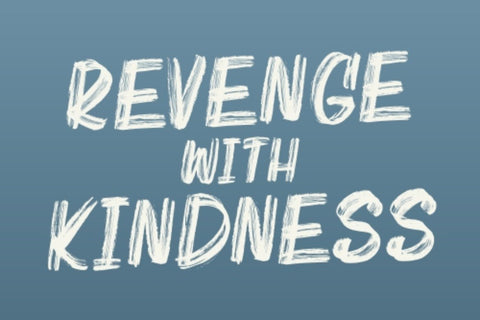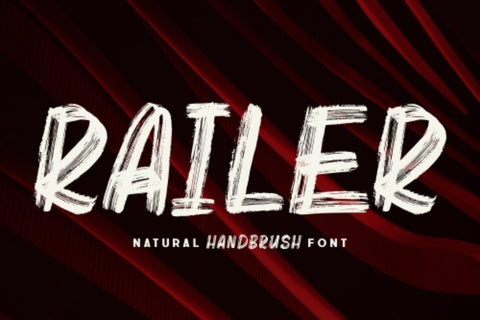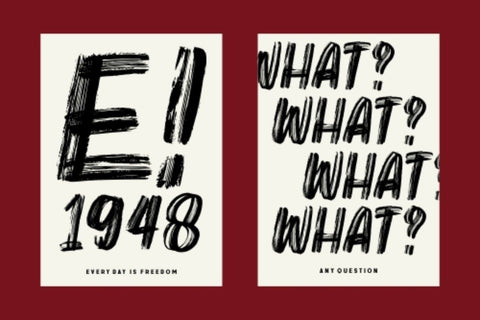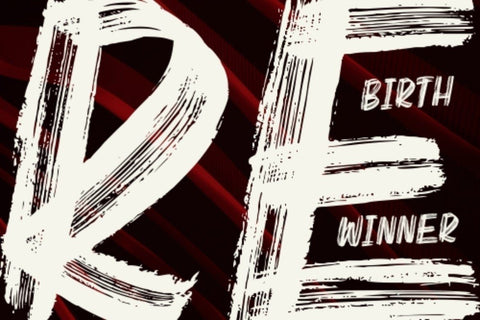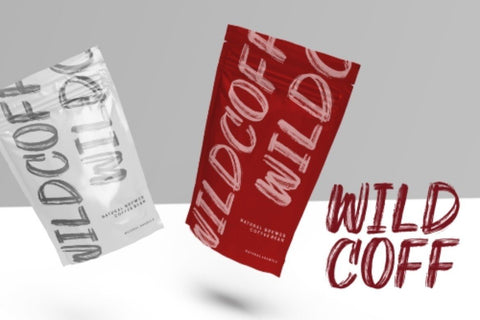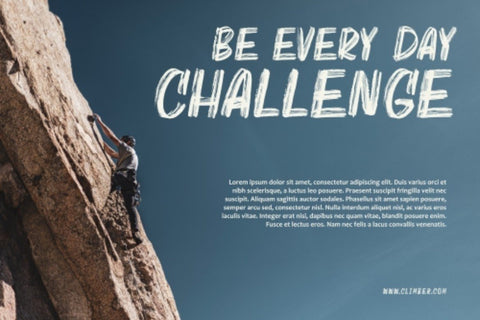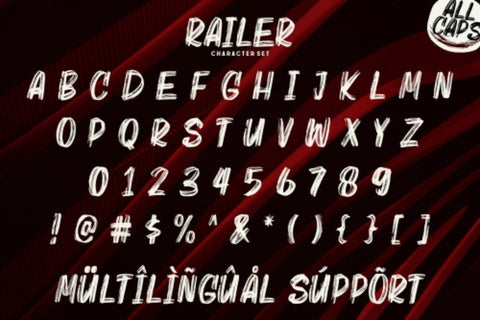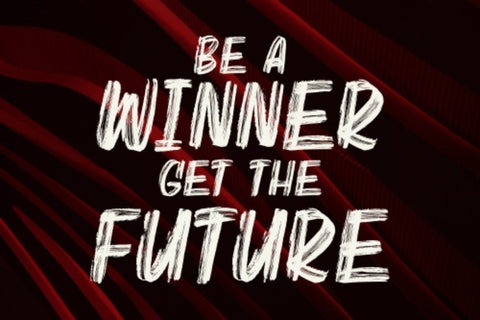
Railer | Handbrush Font
Introducing Railer | Handbrush Font
Railer – Hand brushed Font combines attractive curves with a fresh urban edge; delivering a stylish brush that is guaranteed to add an eye-catching appeal to your logo designs, brand imagery, handwritten quotes, product packaging, merchandise, social media post, or website font.
- Detailed dry brush
- Multilingual Accent